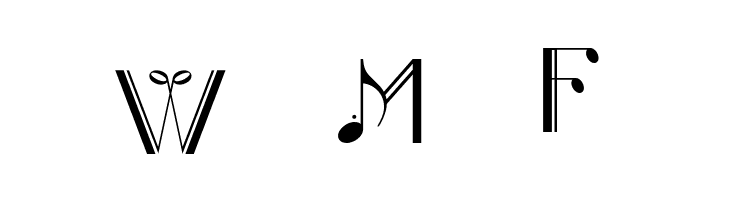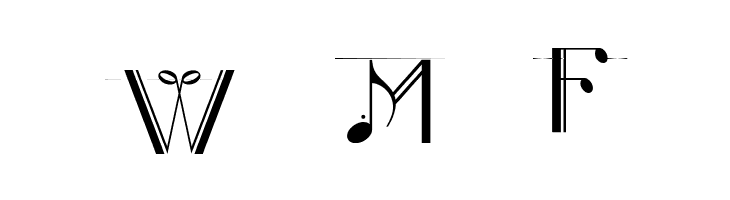
A bold, high-contrast font with Art Deco influences and geometric shapes.
A bold, edgy font with jagged edges and a distressed, rebellious style.
A bold, decorative font with a striking shadow effect and angular design.
A bold, decorative font with an inline design and angular serifs.
A bold blackletter font with intricate detailing and angular strokes.
A bold, jagged font with a hand-crafted, dynamic style.
A bold, dynamic font with slanted letters enclosed in black squares, offering a modern and impactful style.
Cartoonish, prank-themed illustrative font with each character as a unique comic drawing.
Cartoonish space-themed dingbat illustrations.
A whimsical and artistic font with playful, cartoon-like characters.
A traditional blackletter font with ornate, gothic styling.
Illustrative display font with scene-based glyphs.
Cartoonish, bike-themed decorative font with hand-drawn characters.
A rugged, distressed font with a jagged, chaotic appearance.
A bold, three-dimensional font with playful, dynamic elements and shadow effects.
A bold, textured font with circular backgrounds and a woodcut style.
A playful, decorative font with unique embellishments resembling eyelashes.
A bold, stencil-style font with a rugged, industrial look.
A bold, distressed font with jagged, melting edges for dramatic impact.
A dot-matrix style font with a retro, pixelated appearance.
Graphic-heavy, rock-inspired decorative font with illustrated characters.
A bold, rounded font with a playful and approachable style.
A playful, hand-drawn font with bold, irregular strokes and a whimsical style.